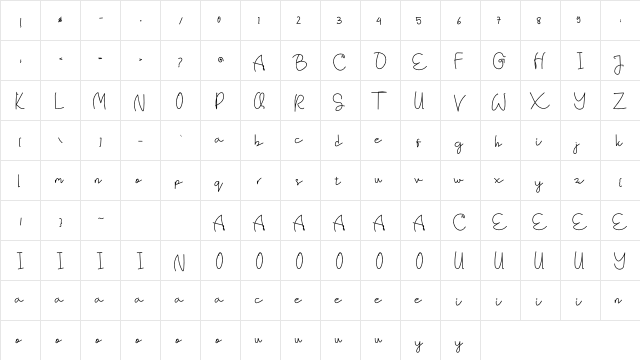
JuwitaNightpersonalu Regular
| Foundry | rozi |
| Designer | rozi |
Design Context for JuwitaNightpersonalu Typeface
JuwitaNightpersonalu offers clean, dependable letterforms without strong stylistic allegiance, making it a practical choice for designers who need flexibility.